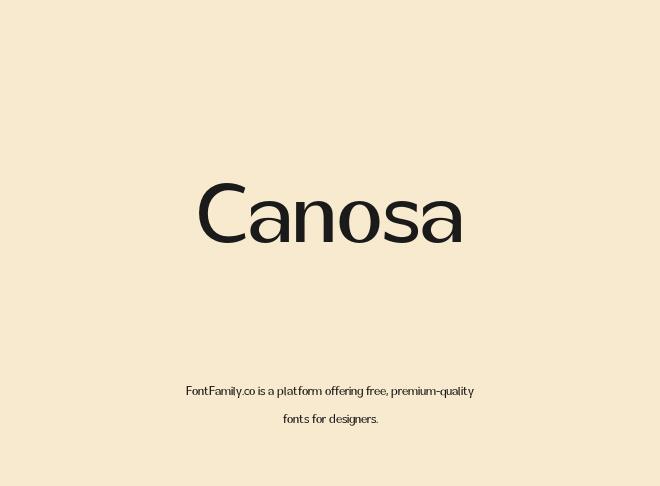
Canosa Font
Canosa Font, designed by Foundry Co., is a modern and minimalistic typeface with geometric undertones. Released in 2018, it offers a unique blend of simplicity and style that is perfect for display and branding purposes. The font's geometric nature gives it a clean, sharp look, making it a great choice for designers who aim to achieve a modern and sophisticated feel in their projects. Compared to other sans-serif fonts, Canosa stands out with its distinctive character shapes and spacing, which adds to its overall appeal. Its versatility makes it suitable for a wide range of applications, from logos and headlines to posters and packaging. Free for personal use, Canosa Font is a must-have in every designer's toolkit.